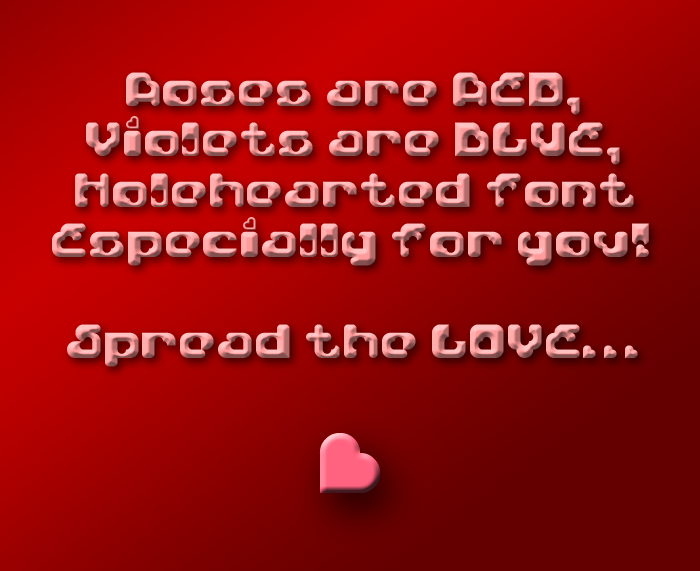
My first published Fontstruct. This has a heart-shaped hole in every letter. Took a while to get right (and I still have to resist the urge to tweak it some more!), but has been a great learning exercise in seeing what's possible in Fontstruct. Sometimes frustrating, but ultimately rewarding!
A very good first font. Great work! 10/10 + favorite
A great first FontStruction - welcome to the 'addiction' :)
This is an instant favorite for me. Some letters are hard to distinguish though, like "R" and maybe "a".
I'm with architaraz. Great first FS and great entry.